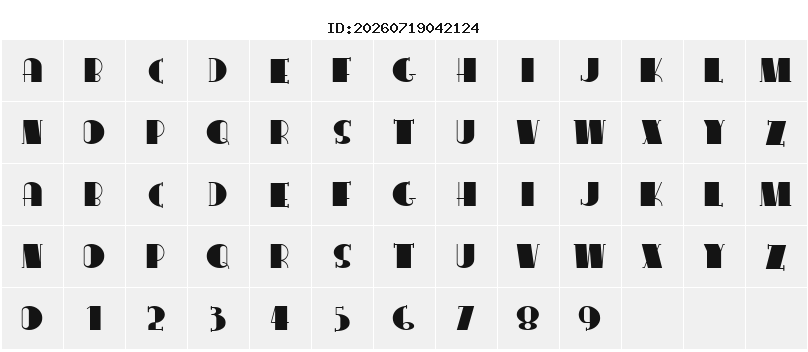
• Font Name: Conga Line NF
• Full Font Name: Conga Line NF
• Designer: Nick Curtis
• Manufacturer: Nick's Fonts
About Conga Line NF.ttf
Conga Line NF.ttf is a modern, elegant sans-serif font designed for ultimate readability and visual harmony. Perfect for branding, headlines, web design, and print materials.